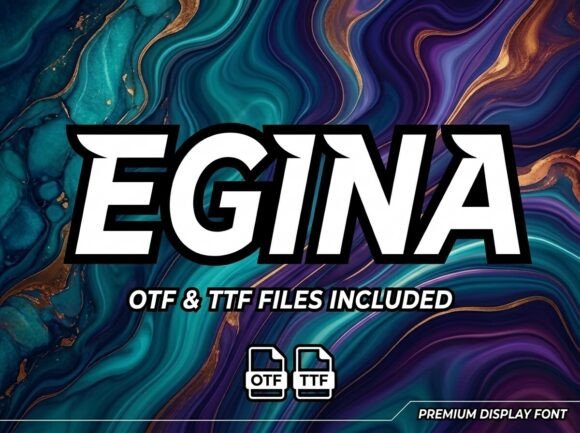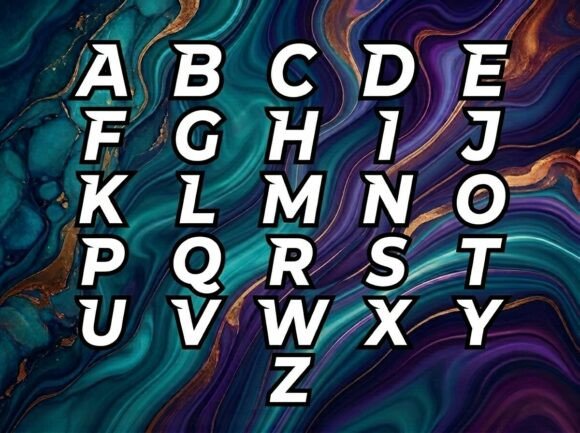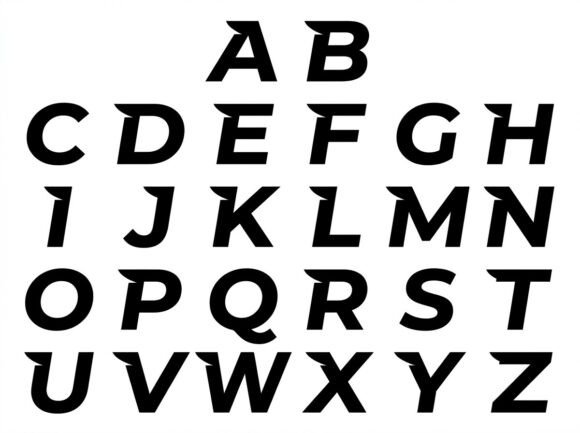
Introducing Egina Font: A Stunning Decorative Display Font
Are you tired of using the same old fonts for your creative projects? Look no further than Egina Font, a unique and artistic display font that’s sure to turn heads. Designed to be the center of attention, Egina Font features a strong visual personality and versatile design that’s perfect for creators who want to break away from the ordinary.
What Makes Egina Font Special?
Egina Font is a decorative display font that’s specifically designed for high-impact headlines, logos, and decorative initials. With its unique artistic elements and strong visual personality, this font is perfect for creators who want to make a statement. Whether you’re designing a bold headline, a artistic logo, or creative packaging, Egina Font is the perfect choice.
Key Features of Egina Font
- Unique Artistic Elements: Egina Font features unique artistic elements that set it apart from other fonts. Each letter is carefully crafted to be a work of art, making it perfect for decorative initials and high-impact headlines.
- Strong Visual Personality: With its strong visual personality, Egina Font is sure to grab attention and make a lasting impression.
- Versatile Design: Egina Font is versatile enough for use in a variety of creative projects, from bold headlines and artistic logos to creative packaging.
- Professional and Polished Finish: Despite its decorative nature, Egina Font maintains a professional and polished finish, making it perfect for use in high-end designs.
⚠️ IMPORTANT NOTE BEFORE PURCHASE: Egina Font is an ALL-CAPS (Uppercase Only) display typeface. It does not include lowercase letters. It is specifically designed for high-impact headlines, logos, and decorative initials where every letter is a work of art.
Why Choose Egina Font?
So why choose Egina Font for your creative projects? Here are just a few reasons:
- Stand Out from the Crowd: With its unique artistic elements and strong visual personality, Egina Font is sure to help your designs stand out from the crowd.
- Perfect for Creative Projects: Egina Font is perfect for use in a variety of creative projects, from bold headlines and artistic logos to creative packaging.